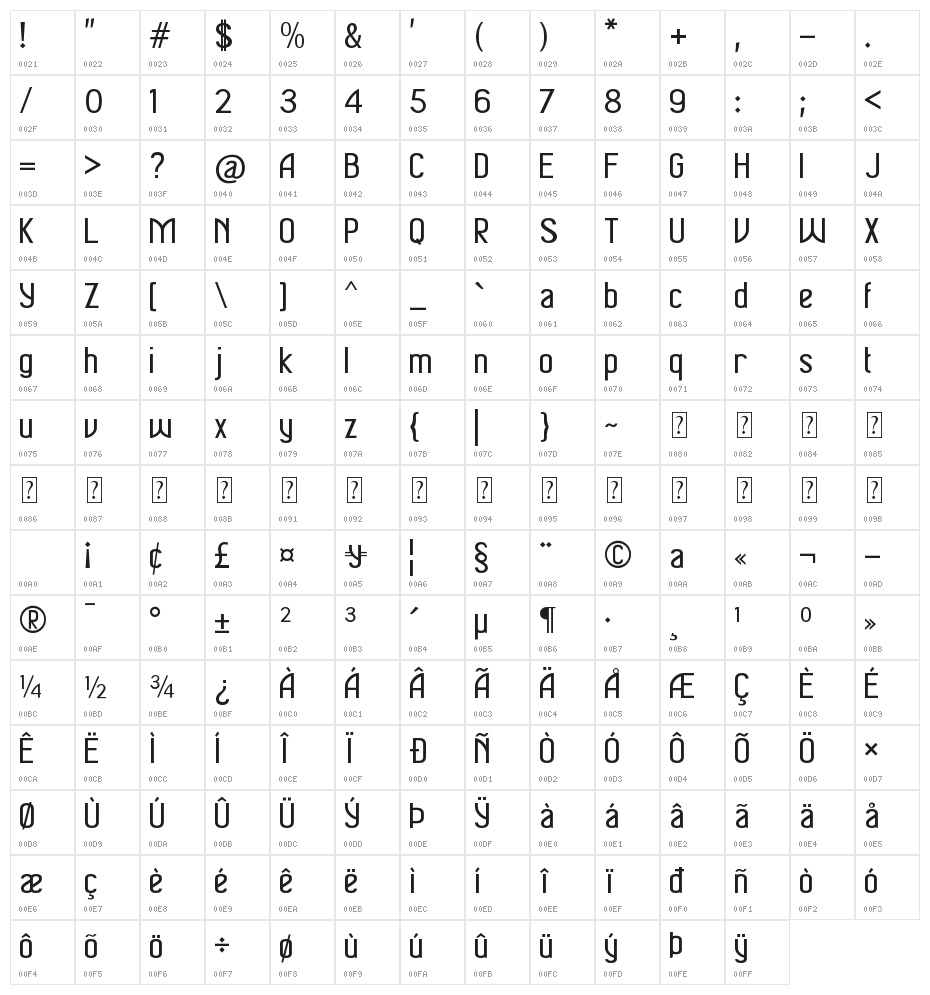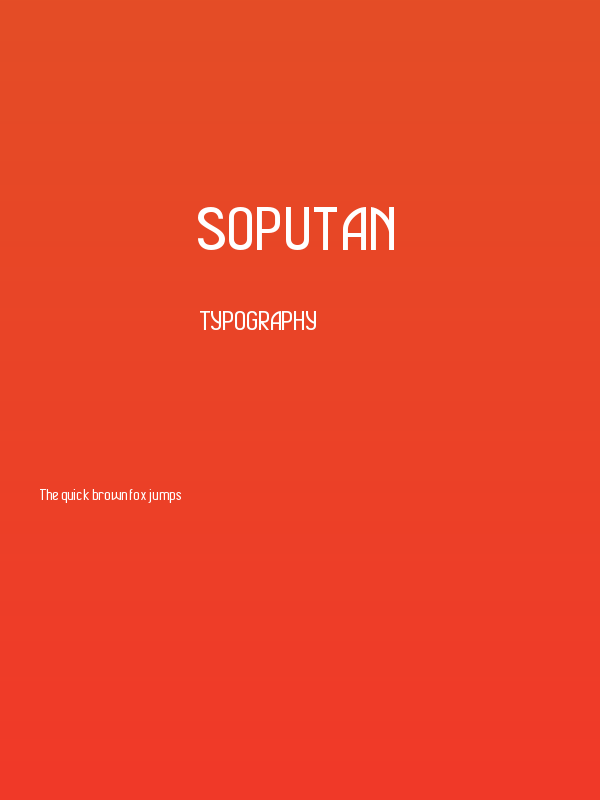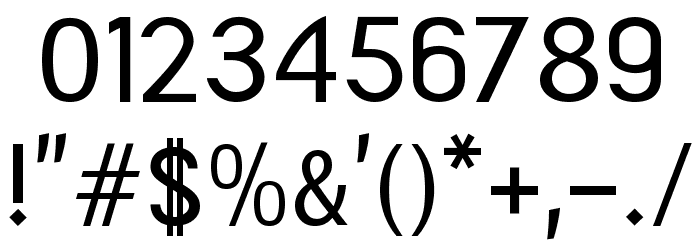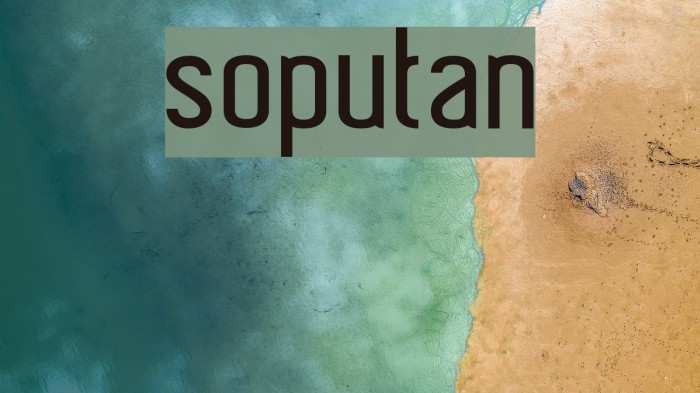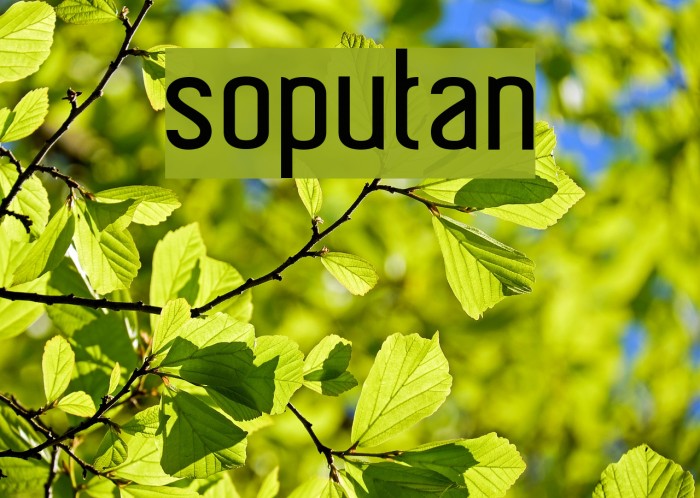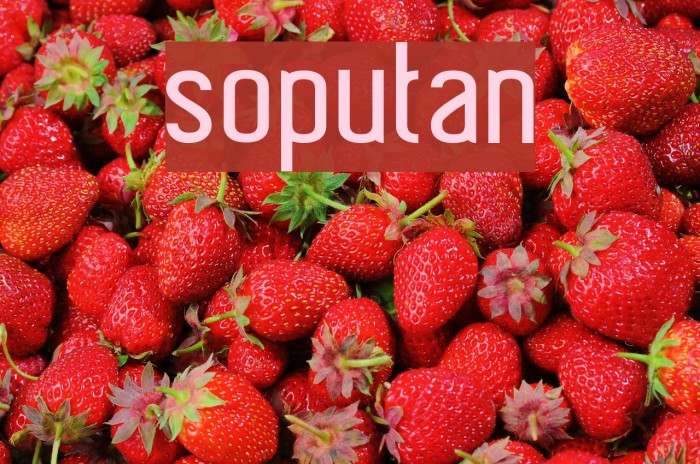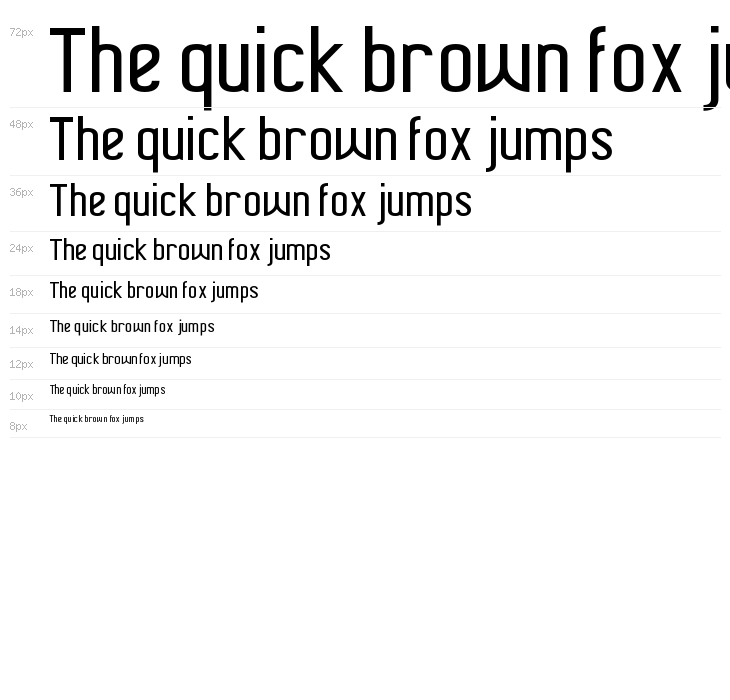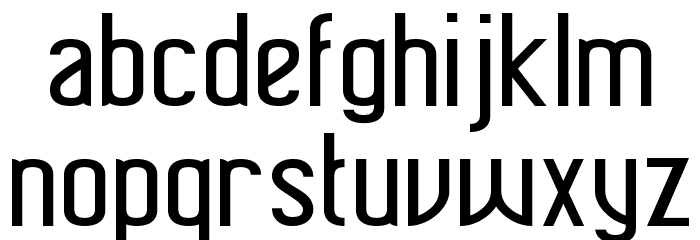
soputan Font
soputan Description
This font features a modern and clean sans-serif style with a geometric influence. The characters are uniform in width, providing a balanced and structured appearance. The uppercase letters are bold and assertive, while the lowercase letters maintain a consistent height, enhancing readability. The numerals are clear and distinct, making them suitable for various applications. Special characters are well-defined, adding versatility to the font. The overall design is sleek and contemporary, making it ideal for digital and print media.
| Proposed Projects | Ideal for branding, digital interfaces, advertising, and editorial design. |